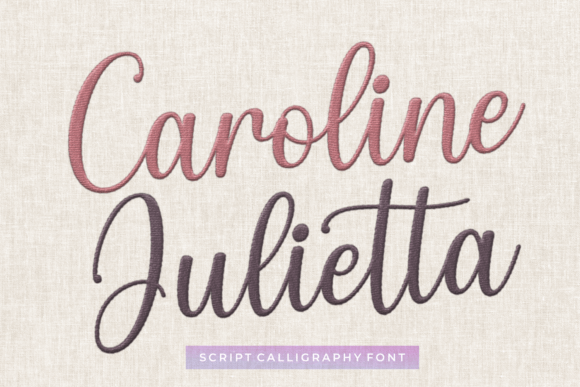
A Touch of Elegance: Unveiling Caroline Julietta Font
Caroline Julietta Font is a stunning handwritten font that brings beauty and sophistication to any design. Its graceful curves and flowing strokes make it perfect for invitations, cards, or any creative endeavor. Whether you’re a professional designer or a DIY enthusiast, this font is sure to add a personal touch to your projects.
• Font Family: Caroline Julietta
• Unique Characteristics: Elegant script style, ideal for invitations, wedding stationery, and formal events
Caroline Julietta Font Review
Overall, I think the Caroline Julietta Font has some lovely qualities, but it’s not without its flaws.
• Cursive script: The Caroline Julietta Font’s cursive script is beautiful and elegant. It’s perfect for adding a touch of sophistication to your designs.
• Legibility: The font is highly legible, making it suitable for body text and headings.
• Historical feel: The font has a classic, vintage feel that’s reminiscent of traditional script fonts.
• Limited character set: The font’s character set is relatively limited, which can be a problem if you need to use special characters or accents.
• No bold or italic: While the font is beautiful, it’s not available in bold or italic styles, which can make it difficult to use in certain contexts.
Overall, I think the Caroline Julietta Font is a beautiful choice for designers who want to add a touch of elegance to their work. However, its limitations may make it less suitable for certain projects. With a little creativity and experimentation, you can still get great results with this font.